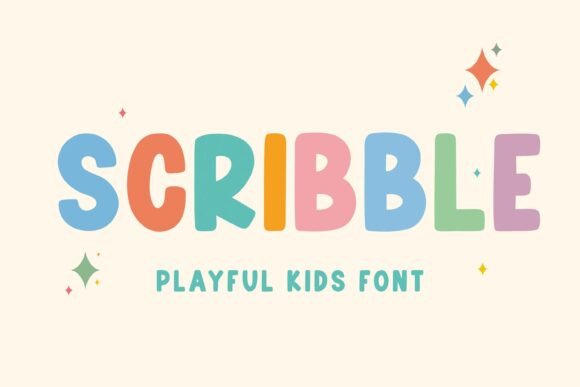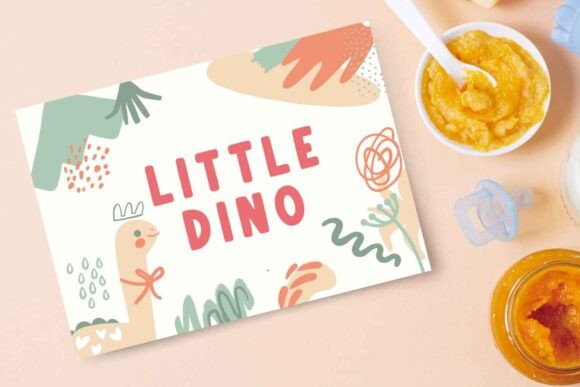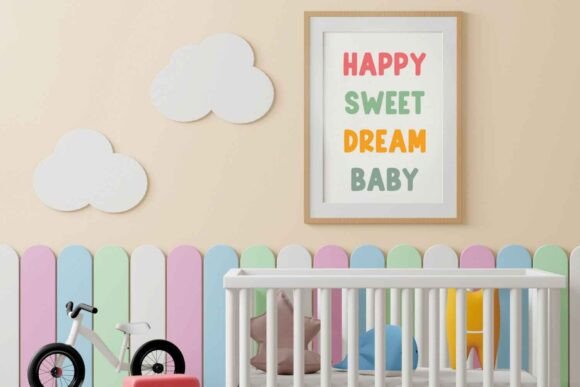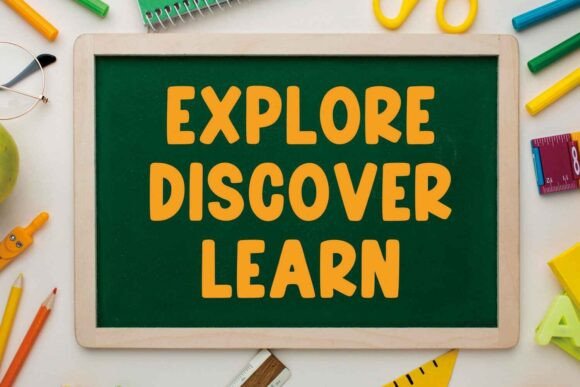
Scribble Font
About the Scribble Font
From logos to headlines, the Scribble Font is the perfect choice for making a lasting impression. Meet Scribble, a lively and playful handwritten font designed to capture the excitement of back-to-school season! With its fun, hand-drawn feel, Scribble is perfect for kids’ designs, educational materials, and anything that needs a touch of youthful energy. Each character is filled with the charm of spontaneous doodles, evoking the joy and creativity that come with new school supplies and fresh notebooks.